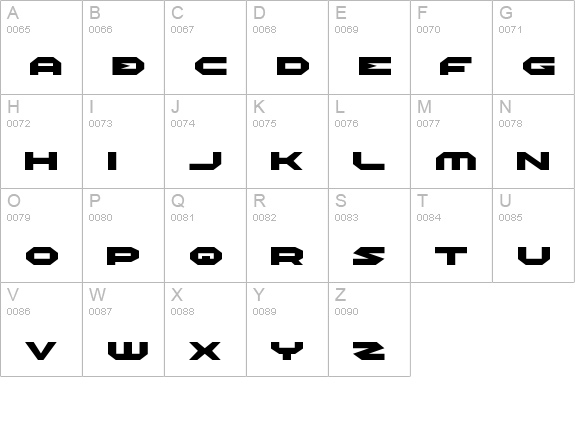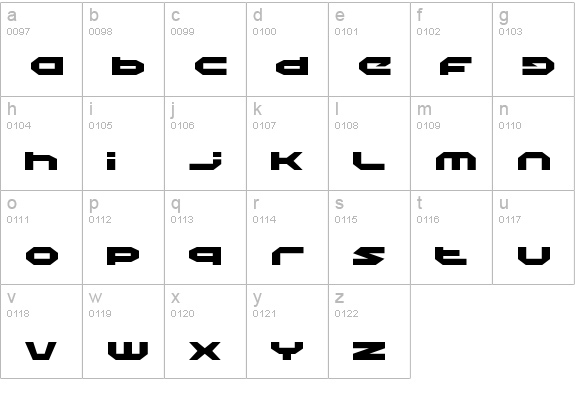
Halo Expanded Font Details
Halo Expanded is a distinctive, extended-width variant in the Halo typeface family \xE2\x80\x94 well suited to design and typography projects.
Introducing Halo Expanded, a beautifully intricate font that effortlessly captures the essence of futuristic elegance. With its sleek and modern design, this font is the perfect choice for any project that requires a touch of sophistication. Halo Expanded offers a wide range of characters, each meticulously crafted to perfection. From its bold and strong letterforms to its delicate and graceful curves, every detail of this font has been carefully considered to create a truly stunning visual experience. One of the most appealing aspects of Halo Expanded is that it is freely available to download at FontsMarket.com. This means that you can easily access and use this extraordinary font without any restrictions or limitations. Whether you're a professional designer or simply someone who appreciates high-quality typography, Halo Expanded is a must-have addition to your font collection. With its versatility and timeless appeal, Halo Expanded is suitable for a wide range of projects. From branding and advertising to web design and packaging, this font will make your creations stand out from the crowd. Its clean and legible letterforms ensure readability, while its unique style adds a touch of sophistication and creativity. Don't miss the opportunity to enhance your designs with the extraordinary beauty of Halo Expanded. Download it for free at FontsMarket.com and unlock a world of endless possibilities.